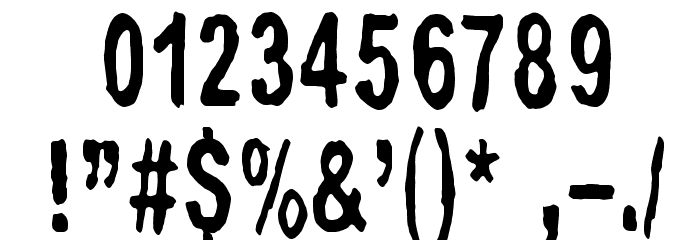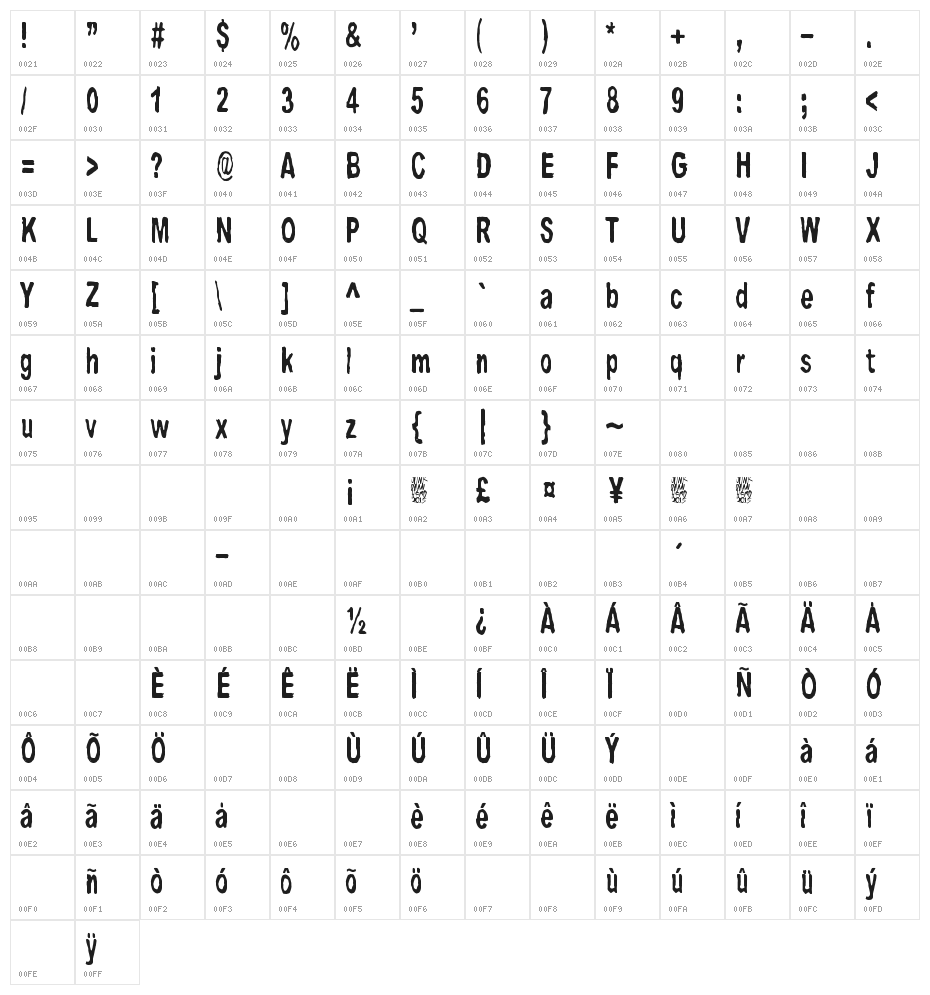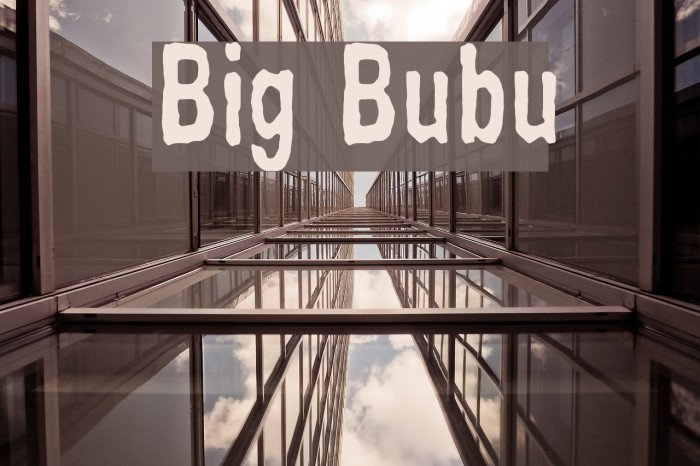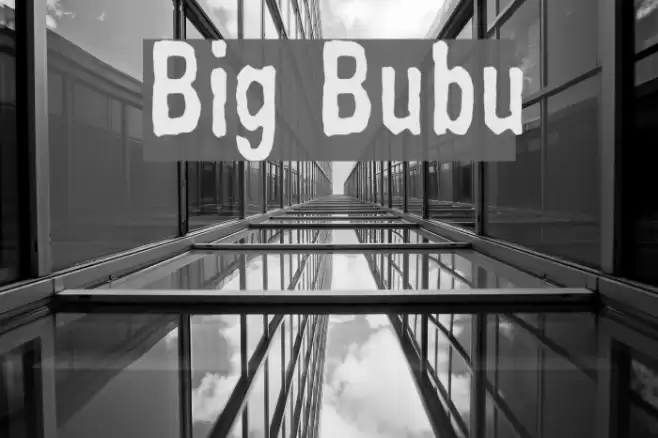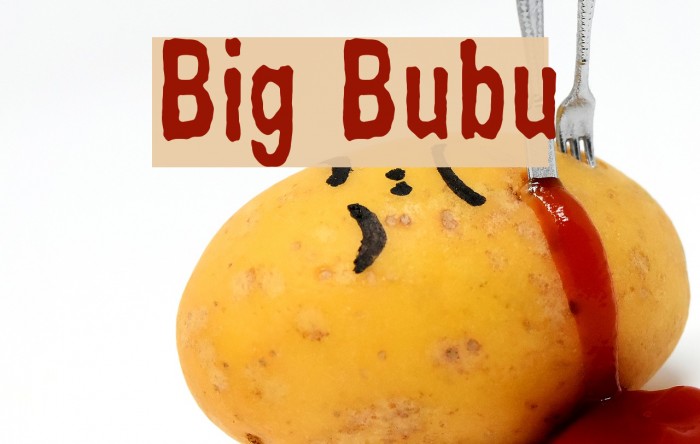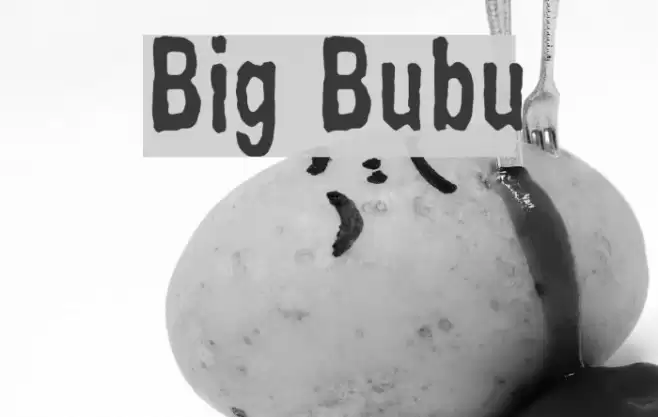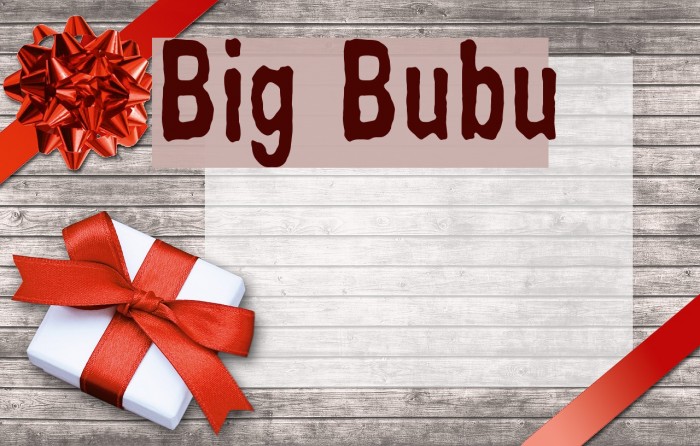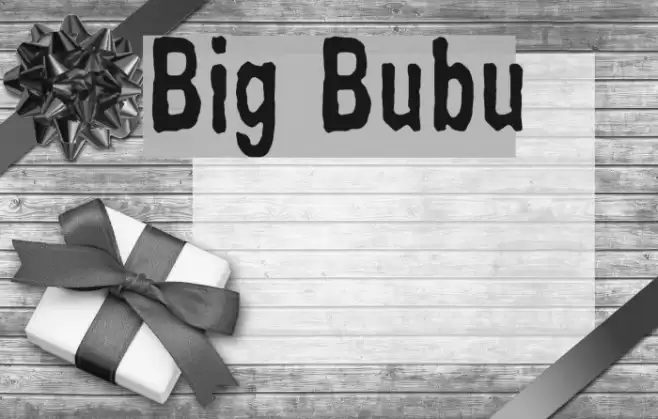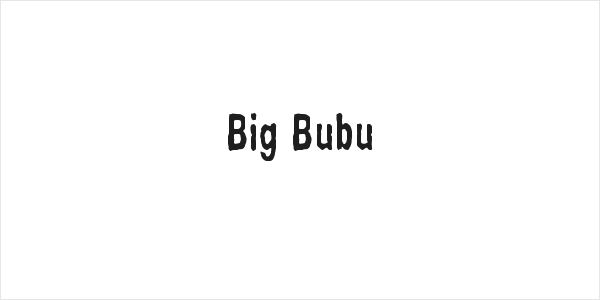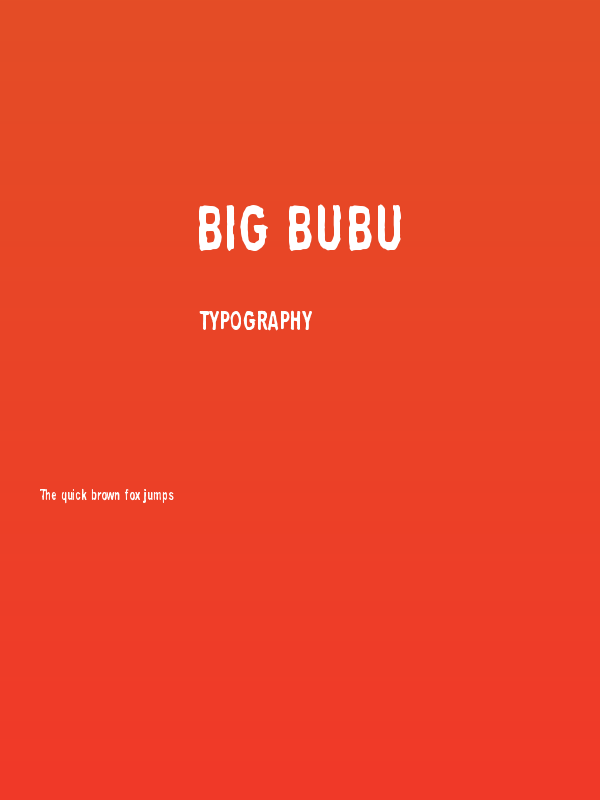
Big Bubu Font
Big Bubu Description
This font features a bold and playful design with a hand-drawn appearance. The characters are slightly irregular, giving it a casual and organic feel. The uppercase and lowercase letters maintain a consistent style, with rounded edges and a slightly distressed texture. The numbers and special characters follow the same aesthetic, making the font cohesive across all elements. Its unique style makes it stand out, suitable for projects that require a touch of whimsy and creativity.
| Overall Style | Playful, Hand-drawn |
| Use Case | Logos, Posters, Invitations |
| Proposed Projects | Ideal for children's books, playful branding, casual invitations, and creative posters. |